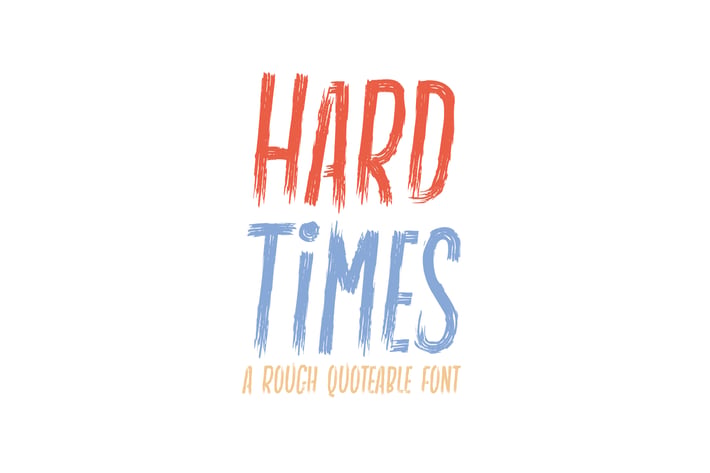
Hard Times - Rough | Quotable | Display Font
Hard Times is a font created with rough style and to fit to use as quoted text or other uses. It features a unique style and will add a rough feel to your upcoming projects. Get inspired by its unique feel and use it to create designs, posters, brand logo, product packaging and many more!